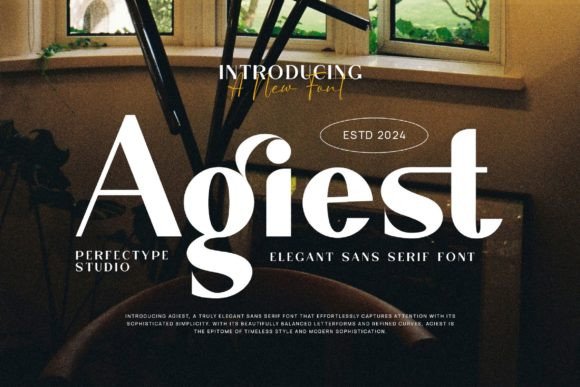
Agiest Font: Elevate Your Design with Elegance and Modernity
In the world of typography, fonts play a crucial role in conveying the tone and personality of a brand or design. Among the numerous font styles available, serif typefaces have always been a popular choice for their classic and sophisticated look. One such elegant serif typeface that has gained significant attention in recent times is the Agiest Font. This beautiful font combines the timeless charm of serif typography with a modern twist, making it an excellent choice for various design projects.
What is Agiest Font?
Agiest is an elegant serif typeface that exudes a sense of refinement and luxury. Its classy and modern style makes it an ideal choice for designers looking to add a touch of sophistication to their work. The font’s unique design elements, such as its slender lines, subtle curves, and precise letter spacing, come together to create a visually appealing and highly readable typeface.
Key Features of Agiest Font
- Elegant Serif Design: Agiest boasts a classic serif design with a modern twist, making it perfect for designs that require a touch of sophistication.
- High Readability: The font’s precise letter spacing and clear design elements ensure high readability, even at smaller font sizes.
- Versatile: Agiest is suitable for a wide range of design projects, from branding and logos to wedding designs, social media posts, and product packaging.
- Modern Style: The font’s modern style ensures that your designs look contemporary and fresh, setting them apart from more traditional typefaces.
Use Cases for Agiest Font
Agiest is an incredibly versatile font that can be used in various design projects. Here are some examples:
- Branding Projects: Use Agiest to create a sophisticated brand identity that exudes elegance and refinement.
- Logos: The font’s unique design elements make it an excellent choice for logos that require a touch of class and sophistication.
- Wedding Designs: Agiest is perfect for wedding designs, such as invitations, stationery, and wedding websites.
- Social Media Posts: Use Agiest to create visually appealing social media posts that stand out from the crowd.
- Advertisements: The font’s high readability and elegant design make it an excellent choice for advertisements.
- Product Packaging: Agiest can add a touch of sophistication to product packaging, making your products stand out on store shelves.
- Product Designs: Use Agiest to create beautiful product designs that exude elegance and refinement.
- Labels: The font’s clear design elements make it an excellent choice for labels that require high readability.
- Photography: Agiest can be used to create beautiful watermarks for your photographs.
- Invitations: Use Agiest to create elegant invitations for special occasions.
- Stationery: The font’s classic design makes it an excellent choice for stationery, such as letterheads and business cards.
Why Choose Agiest Font?
With so many fonts available, why should you choose Agiest? Here are a few reasons:
- Unique Design: Agiest has a unique design that sets it apart from other serif typefaces.
- High Readability: The font’s precise letter spacing and clear design elements ensure high readability.
- Versatility: Agiest can be used in a wide range of design projects.
- Elegant and Modern: The font’s elegant and modern style makes it perfect for designs that require a touch of sophistication.
In conclusion, Agiest Font is an elegant serif typeface that combines the timeless charm of classic typography with a modern twist. Its unique design elements, high readability, and versatility make it an excellent choice for various design projects. Whether you’re working on a branding project, logo, wedding design, or social media post, Agiest is sure to elevate your design with its elegance and modernity.
- What is Agiest Font?: Agiest is an elegant serif typeface that combines the timeless charm of classic typography with a modern twist.
- Is Agiest suitable for body text?: Yes, Agiest is suitable for body text due to its high readability.